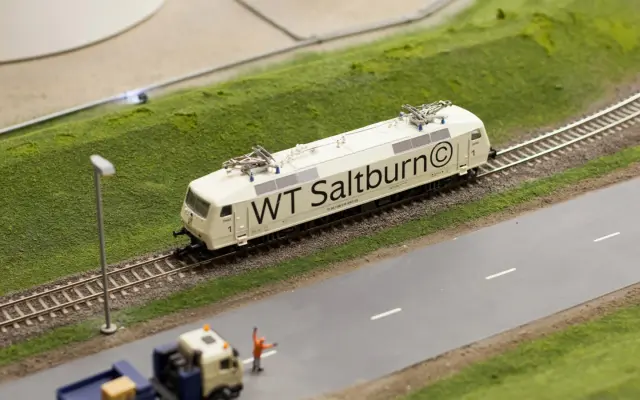
Saltburn
A variable humanist sans by Jacob Wise, drawn from the British railway typographic tradition of Johnston and Gill Sans and calibrated against the house styles of British Rail, Dutch NS and Swiss Federal Railways.
Nine weights from Thin to Heavy, each with italics, and a variable version covering both weight and italic axes, give the family considerable range for signage and wayfinding systems. Humanist details — open counters, sharp terminals, a double-storey 'g' and a chiselled 't' — sit within grotesque proportions, with stylistic alternates for those who prefer plainer forms. An extensive glyph set adds figures in multiple styles, fractions, fleurons, transport pictograms and mathematical symbols, making it unusually well equipped for the environments it targets.
Saltburn draws explicitly on the British humanist sans tradition via Johnston's Underground Alphabet and Gill Sans, combining open counters and sharp terminals with grotesque proportions — placing it firmly in the humanist sans subcategory.